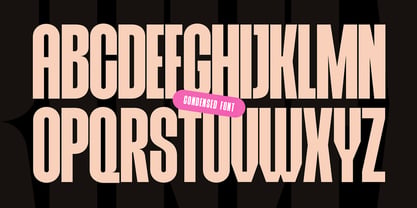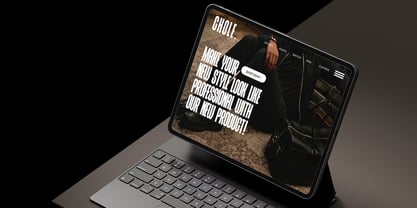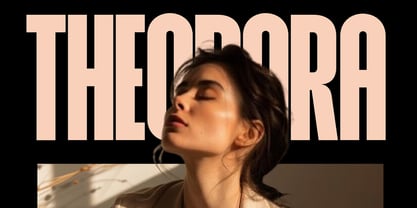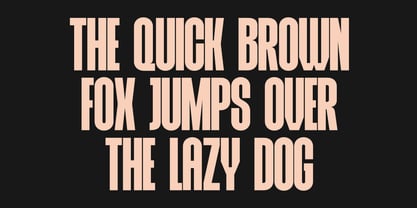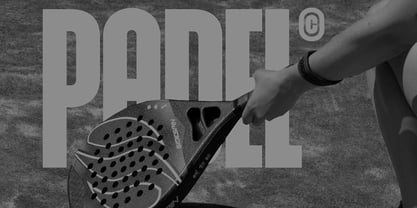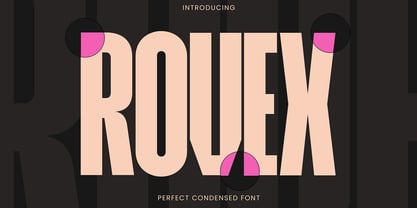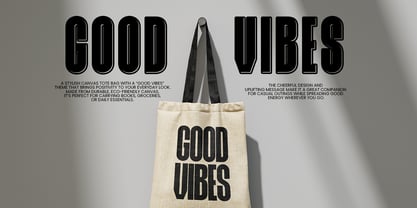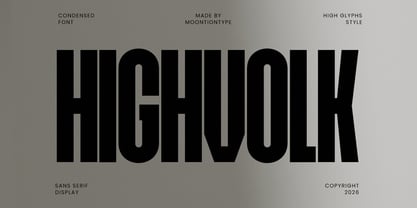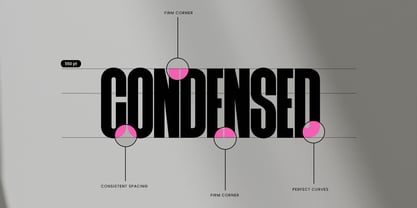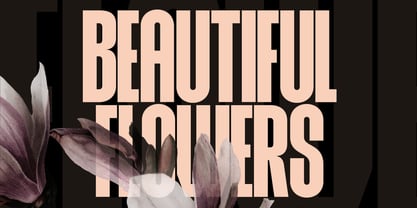
Rovex
by Moontiontype
The Rovex Font Family was designed by Dinda Nur Dwiyanti and published by Moontiontype. Rovex contains 1 styles. More about this family
Rovex is a bold and powerful condensed display font designed to make your designs stand out. With its strong structure, tall proportions, and modern aesthetic, Rovex is perfect for eye-catching headlines and impactful branding. This typeface delivers a clean yet aggressive look that works beautifully for posters, logos, advertising, and contemporary design projects. Whether you're creating streetwear branding, sports graphics, YouTube thumbnails, or modern editorial layouts, Rovex gives your typography a confident and professional edge. Perfect For Logo design Posters & headlines Branding projects Sports graphics Streetwear designs Social media graphics YouTube thumbnails Album covers Modern advertising Rovex is designed to create strong visual impact while keeping a modern and stylish feel. Perfect for designers who want bold typography that grabs attention instantly. Thank You Moontiontype
Designers: Dinda Nur Dwiyanti
Foundry: Moontiontype